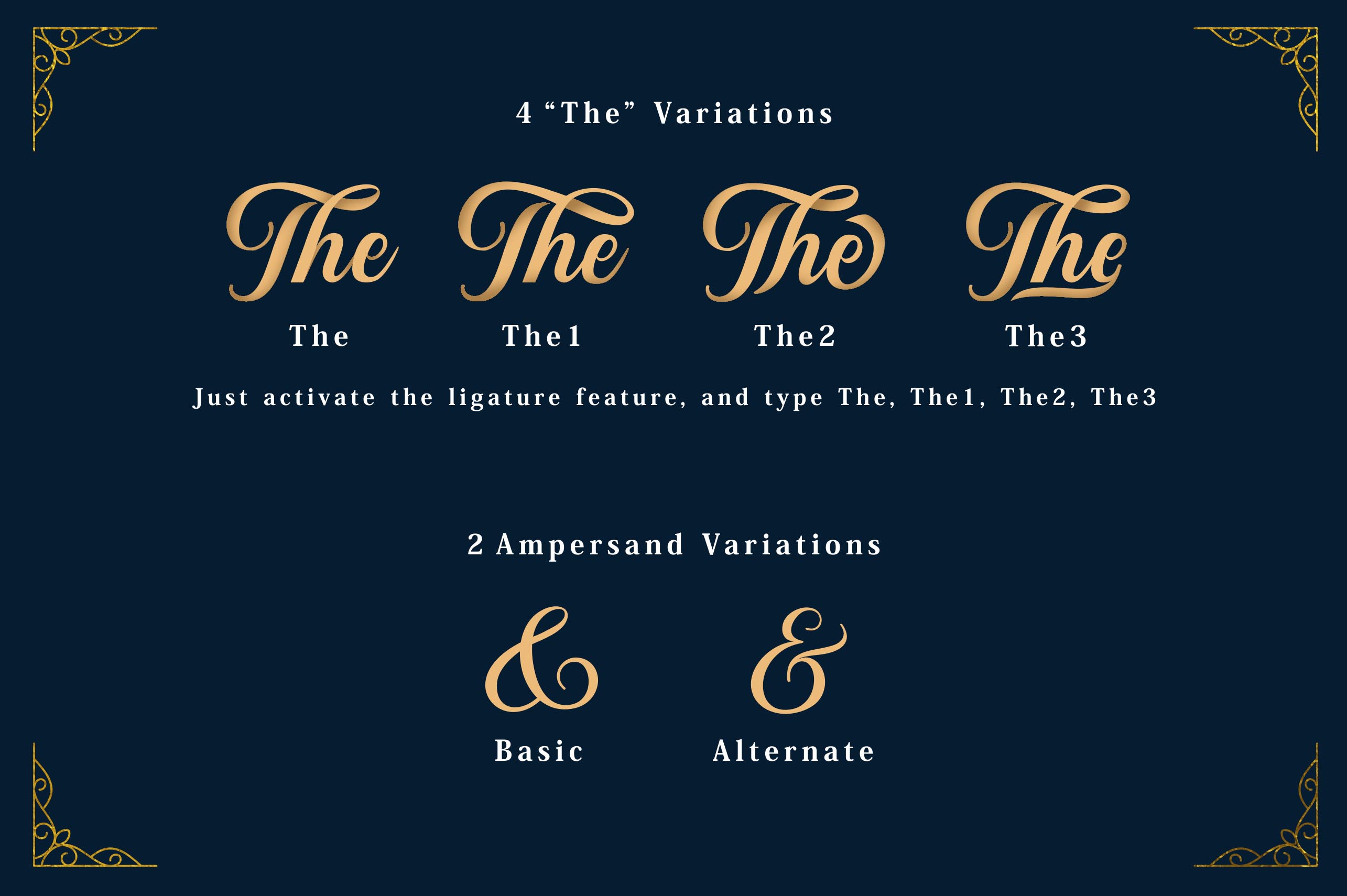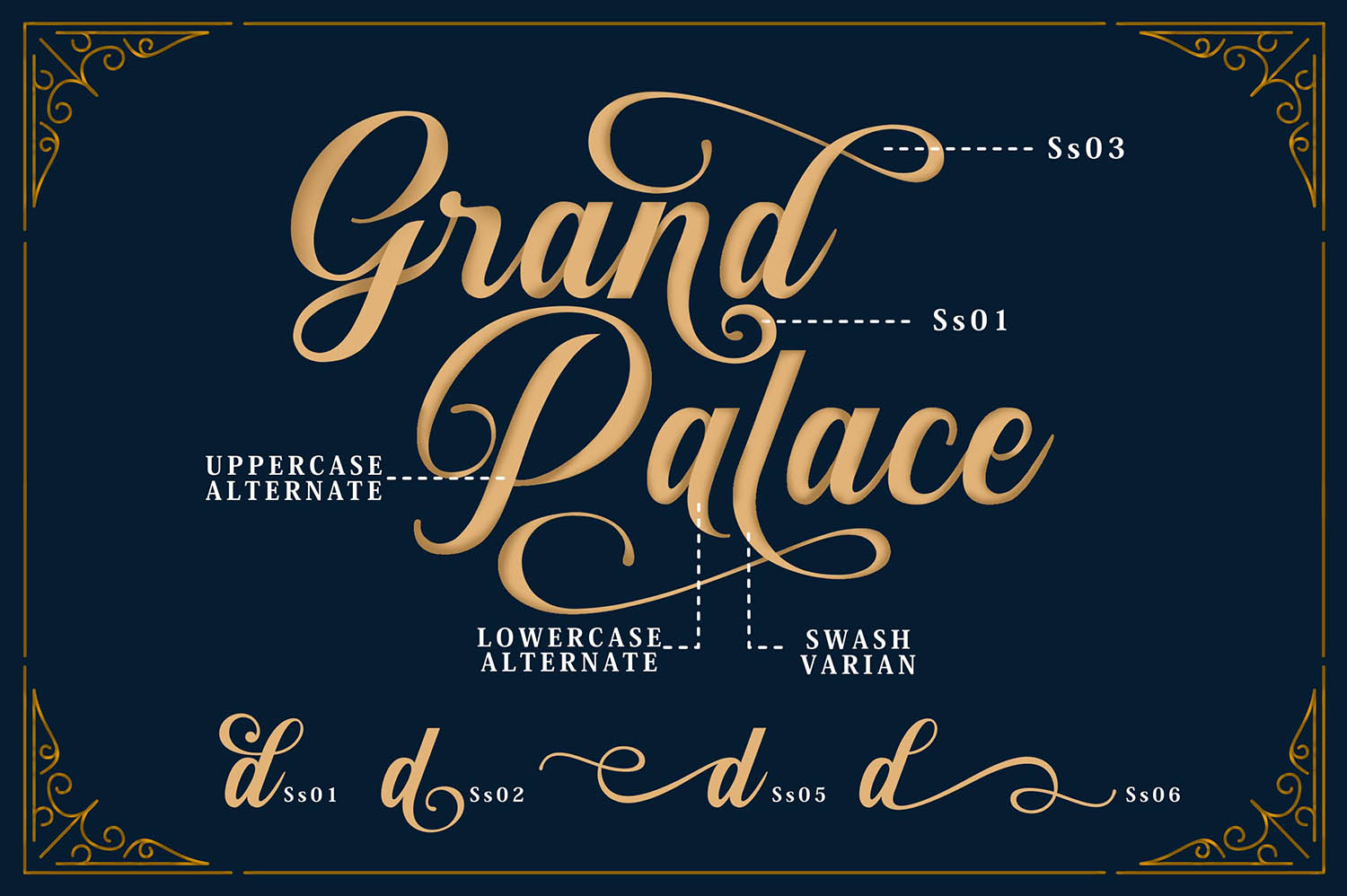
Sunshine & Vintage Ornaments Font
db-ku.com - Script & Handwritten -- The Sunshine Script is a stunning decorative script font created by Lettersiro Co.